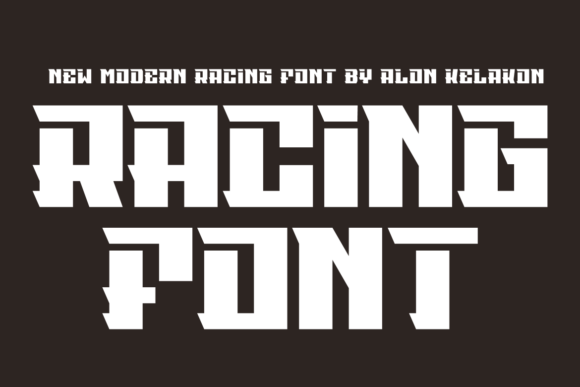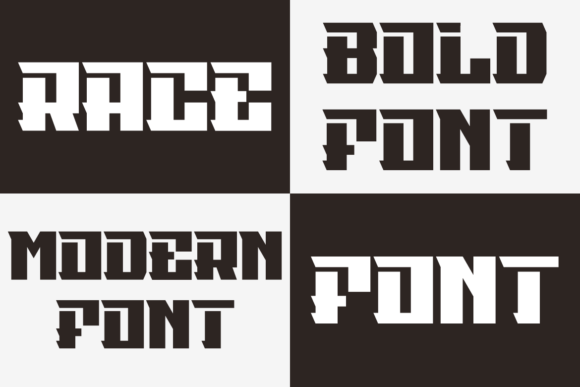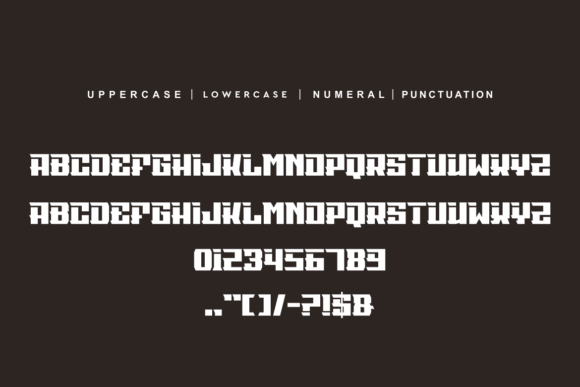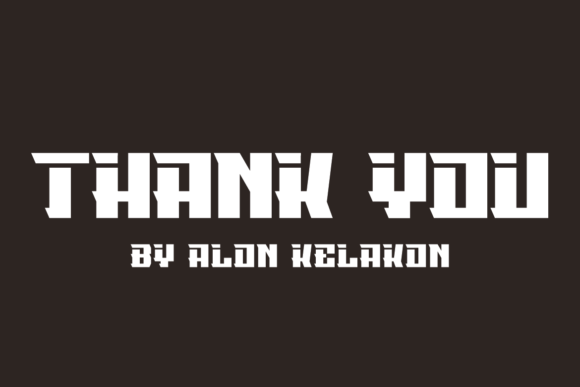
Introduction to Race Nosmax Font
As a designer, you know that the right font can elevate a creative project from good to great. Remember the moment when you finally found the perfect font to match your vision? It’s a feeling like no other – like the stars have aligned and your design is about to shine. That’s exactly what happens when you add the Race Nosmax Font to your project.
With its cool and modern design, this display font is perfect for making a statement. Whether you’re creating banners, posters, flyers, or headlines, Race Nosmax Font is sure to make an impact. Its sleek and sophisticated look will elevate your design and make it stand out from the crowd. And the best part? It’s available for free download, making it a valuable resource for designers of all levels.
Key Features of Race Nosmax Font
- Unique design and style, perfect for creative projects and design resources
- Perfect for use in logos, branding materials, and other creative projects where a unique and eye-catching font is desired
Honest Review: Race Nosmax Font
I recently stumbled upon the Race Nosmax Font, and I must say it’s a great addition to any design resource collection. The font is perfect for creative projects that require a bold, high-quality display. One of the standout features is its transparent background, which allows for seamless integration into any design.
Here are some things that work well about the Race Nosmax Font:
- ✨ Unique and bold style that grabs attention
- ✨ High-quality design that’s perfect for logos and graphics
- ⚠️ Not suitable for body text due to its bold and attention-grabbing nature
Overall, I’m impressed with the Race Nosmax Font. It’s a great resource for designers who need a high-quality, bold font for their creative projects. If you’re looking for a free download to add some flair to your designs, I’d definitely recommend checking it out.
Race Nosmax Font
Getting the Most Out of the Race Nosmax Font
To get the most out of the Race Nosmax Font, experiment with different font sizes, colors, and combinations to find the perfect look for your project. You can also use the font in conjunction with other design elements, such as images and graphics, to create a unique and engaging visual identity.
Common Use Cases for the Race Nosmax Font
The Race Nosmax Font is perfect for a variety of creative projects, including graphic design, digital art, and even web design. Its unique and stylish design makes it an ideal choice for designers who want to stand out from the crowd.